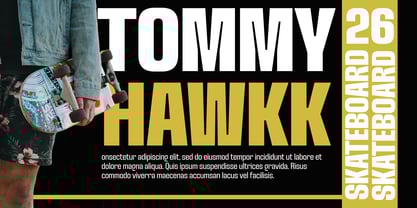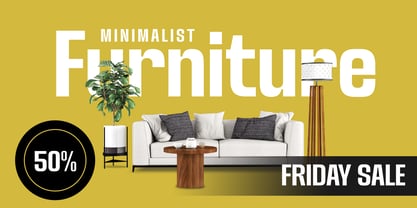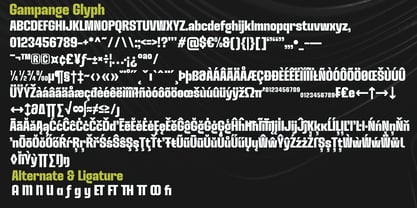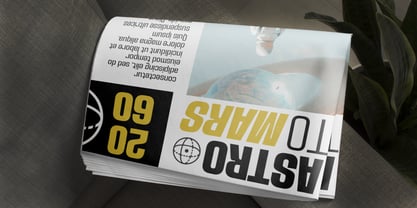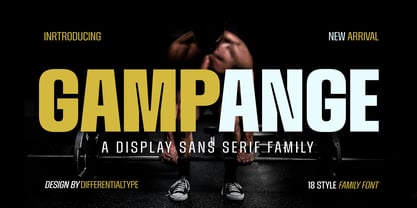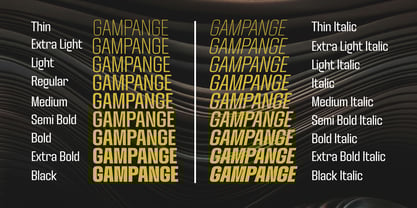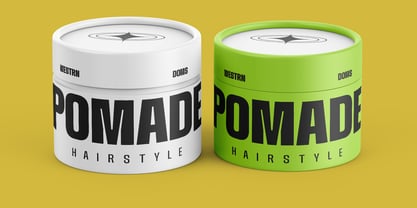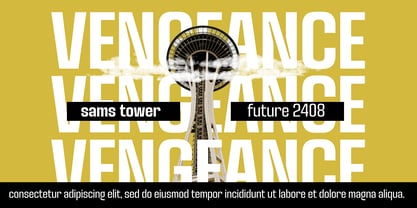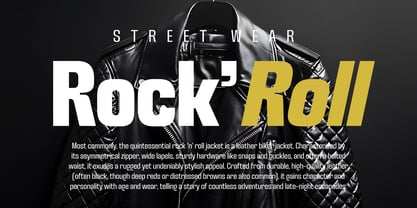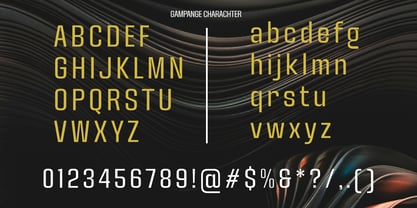
Gampange
by Differentialtype
The Gampange Font Family was designed by Sidik Sidik and published by Differentialtype. Gampange contains 18 styles and family package options.
Explore Gampange, a modern sans-serif font family designed for maximum visual impact! With a bold and sporty appearance, Gampange exudes an aura of strength and dynamism, perfect for projects that demand a modern touch. From Thin to Black, this font offers a comprehensive 18 styles, including captivating italic versions, giving you endless flexibility for every design need.
Gampange is a versatile choice that will make your designs stand out. Ideal for displays, posters, product branding, logos, and even striking text typesetting, this font adapts to various applications with ease. Infuse energy and style into your projects with Gampange, the font ready to take your designs to the next level!